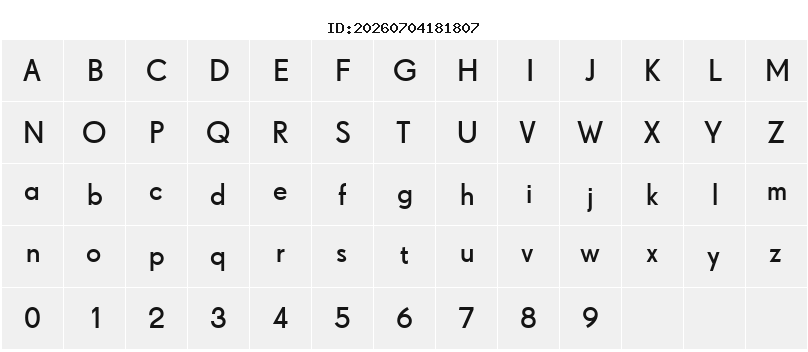
Drescher Grotesk BT SemiBold Preview
• Font Name: Drescher Grotesk BT SemiBold
• Font ID: Drescher Grotesk BT Semi-Bold, Geometric 416
• Full Font Name: Drescher Grotesk BT SemiBold
• PostScript Name: DrescherGroteskBT-SemiBold
About Drescher Grotesk BT SemiBold.ttf
Drescher Grotesk BT SemiBold.ttf is a modern, elegant sans-serif font designed for ultimate readability and visual harmony. Perfect for branding, headlines, web design, and print materials.